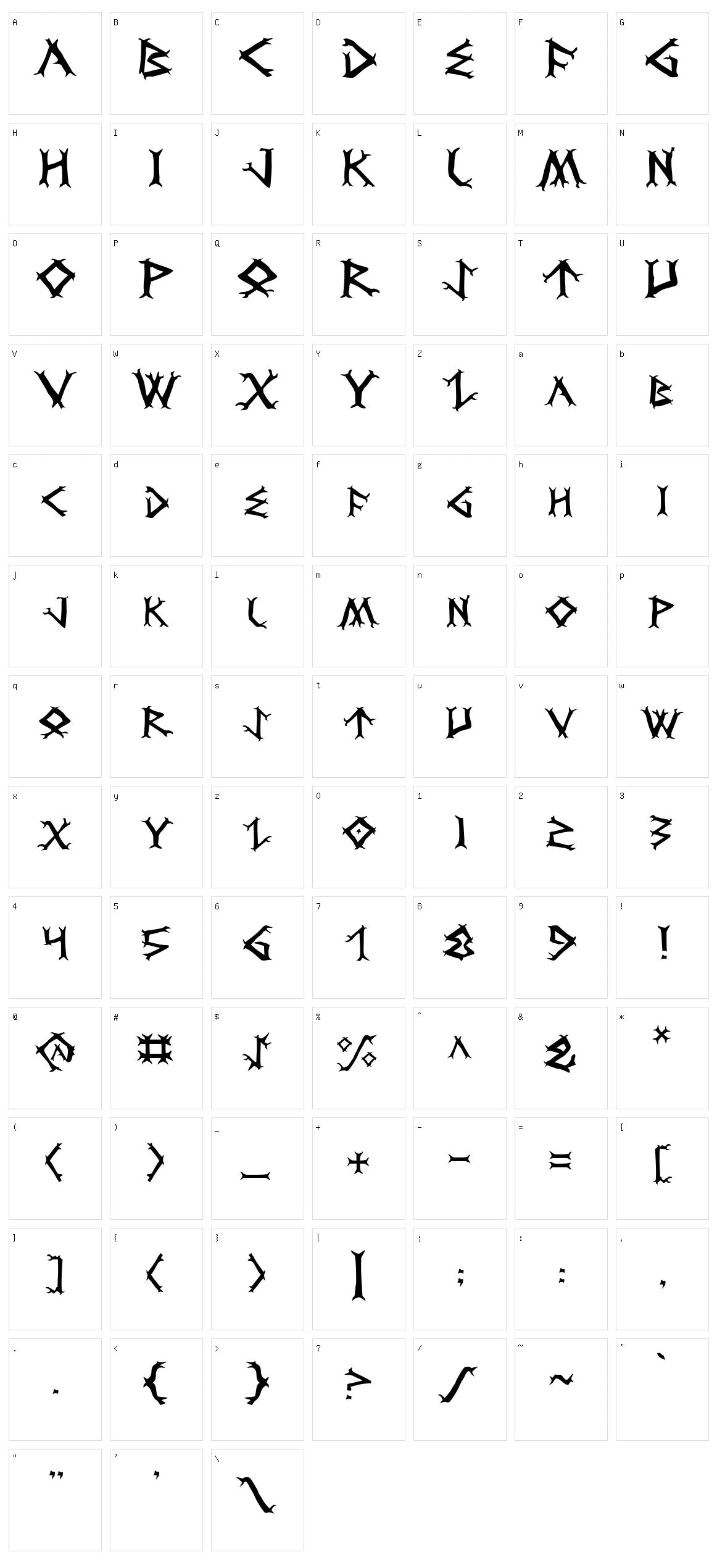
The free font Dragon Order is carefully designed by Iconian Fonts, showcasing a thoughtful balance of creativity and usability and belongs to the Gothic font family. When you download the ZIP file, it contains only 105.66 KB of font files, making it lightweight and quick to download. Please review the license details below to understand permitted usage and distribution rights. If license information is not available, we recommend using this font for personal projects only or contacting the author directly for commercial usage permissions.